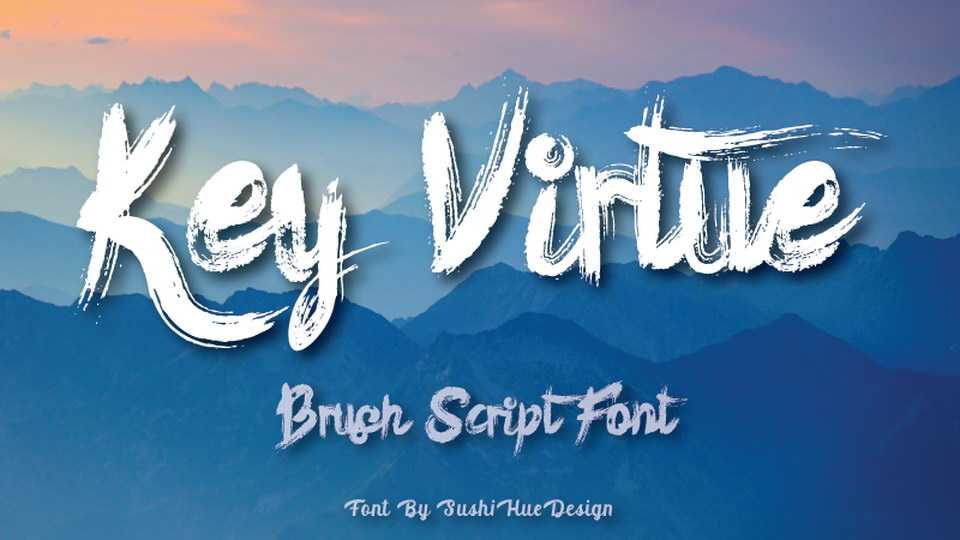
Download Key Virtue font, a bold and grungy hand painted rough brush typeface. Key Virtue font is perfect for crafts, posters, t-shirt prints, headlines, social media and more.
Designer: Sushi Hue Design